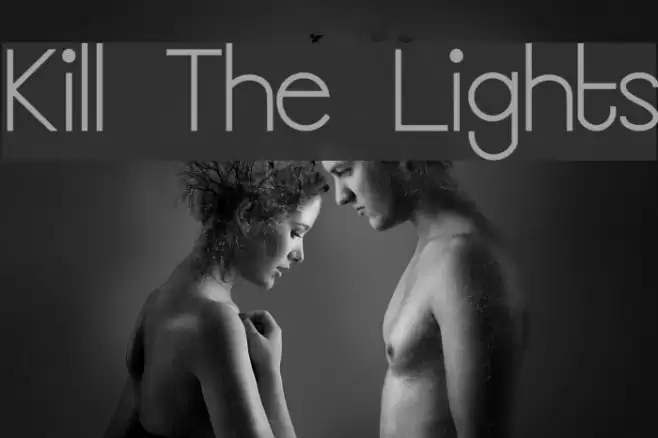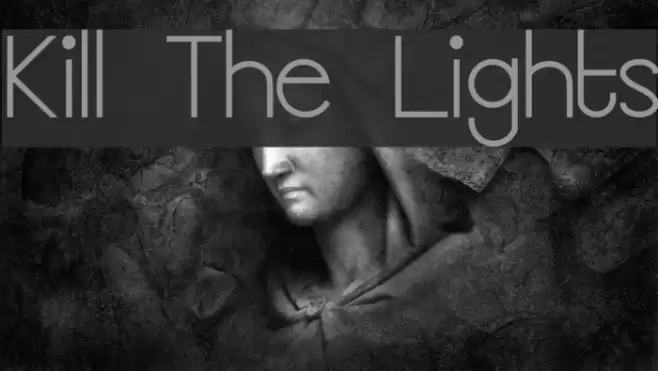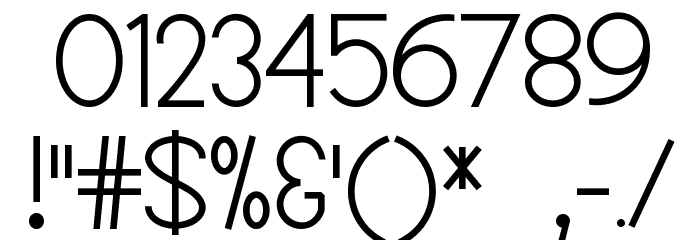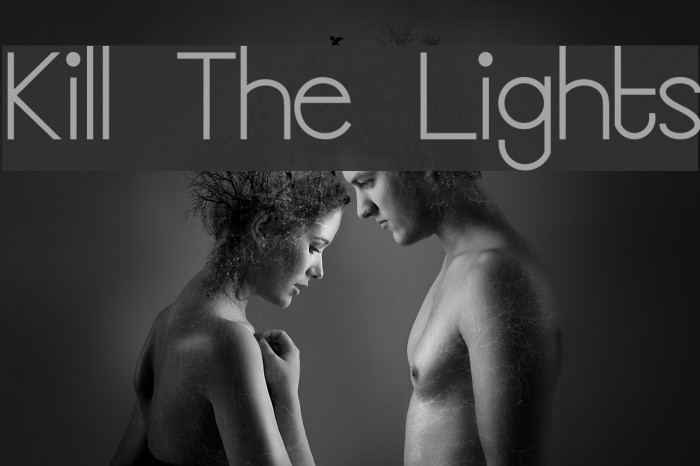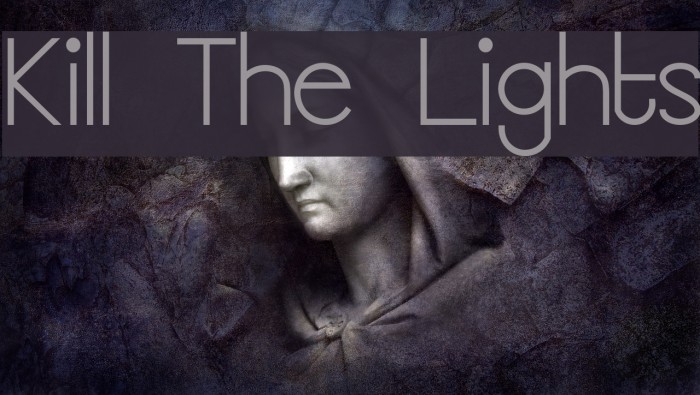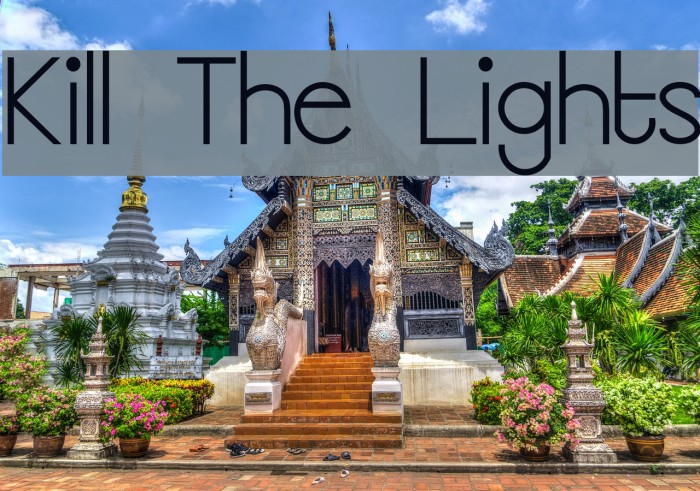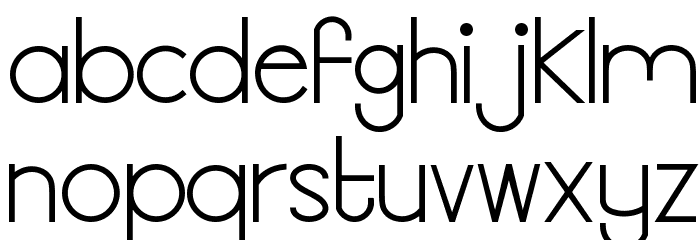
Kill The Lights Font
Kill The Lights Description
This font features a clean and modern sans-serif style, characterized by its geometric shapes and uniform stroke widths. The letters are well-balanced with a consistent height, providing a sleek and contemporary look. The uppercase and lowercase characters maintain a harmonious alignment, while the numerals are clear and easy to read. Special characters are designed with simplicity in mind, ensuring they complement the overall aesthetic. The font's minimalistic design makes it versatile for various applications, offering a professional and polished appearance.
A modern, geometric sans-serif font with uniform strokes and a sleek design from Uncategorized fonts.
- Proposed Projects: Ideal for branding, web design, advertising, and editorial projects where a modern and clean look is desired.